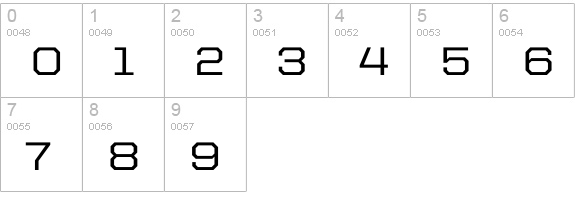
United Sans SemiExt Medium Font Details
United Sans SemiExt Medium is a balanced, medium-weight variant in the United typeface family \xE2\x80\x94 well suited to sub-headlines, navigation, and balanced editorial work.
United Sans SemiExt Medium is a modern and versatile typeface that exudes confidence and professionalism. Its sleek and clean design makes it perfect for a wide range of applications, from corporate branding to editorial design. With its semi-extended character proportions, this font strikes the perfect balance between readability and impact. The medium weight adds just the right amount of emphasis, making it suitable for both headlines and body text. The United Sans SemiExt Medium font boasts a timeless appeal, with its subtle yet distinct features. Its rounded edges and precise curves create a harmonious aesthetic that is both inviting and authoritative. One of the most appealing aspects of United Sans SemiExt Medium is that it is freely available to download at FontsMarket.com. This means that designers and typographers can access this exceptional typeface without any restrictions, allowing them to unleash their creativity and bring their visions to life. Whether you need to create captivating advertisements, engaging websites, or captivating editorial layouts, United Sans SemiExt Medium is the perfect choice. Its versatility, coupled with its freely accessible nature, makes it an indispensable tool in any designer's toolkit. Download United Sans SemiExt Medium today from FontsMarket.com and experience the power and elegance of this remarkable font. Elevate your design projects to new heights with its timeless appeal and exceptional legibility.